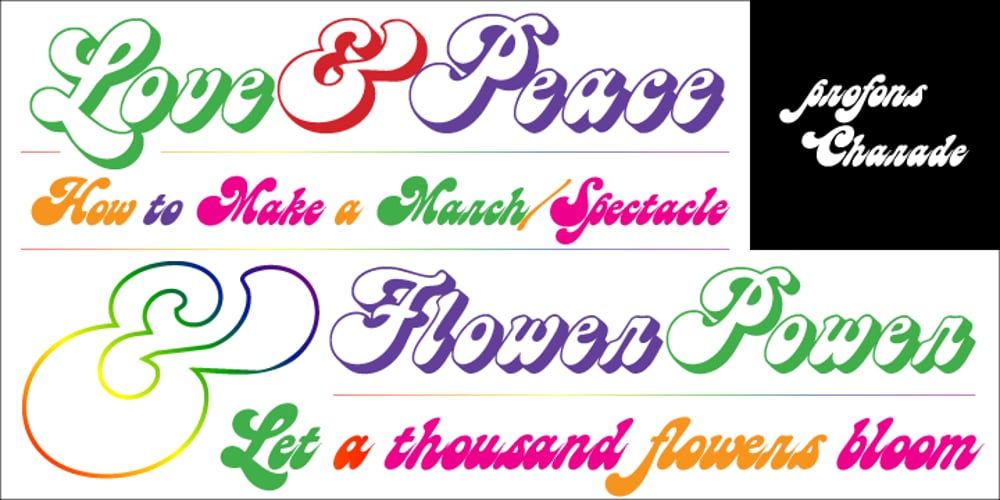
Charade Font Family was designed by Profonts Studio and published by profonts. Charade contains 3 styles and family package options. Charade is a soft, resonant design that beams of comforting warmths, joy and cosiness. It reminds of the 60ies and 70ies, flower power, party and having a good time. The outline and shadow styles are provided for special typographical expressions, for example for titles of films and videos.